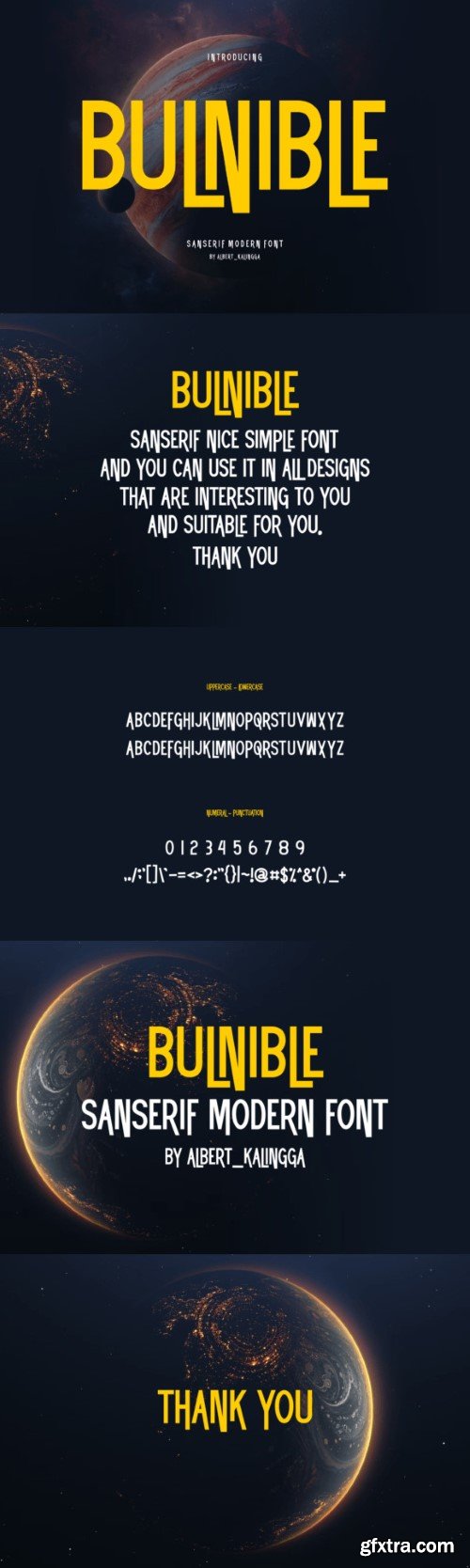
Introducing our new product **Bulnible Font** – Modern Font
**Bulnible Font** – Modern Font is a bold and authentic display font. The font is suitable for any branding project like logo, esport, and many more. outstanding in a wide range of contexts.